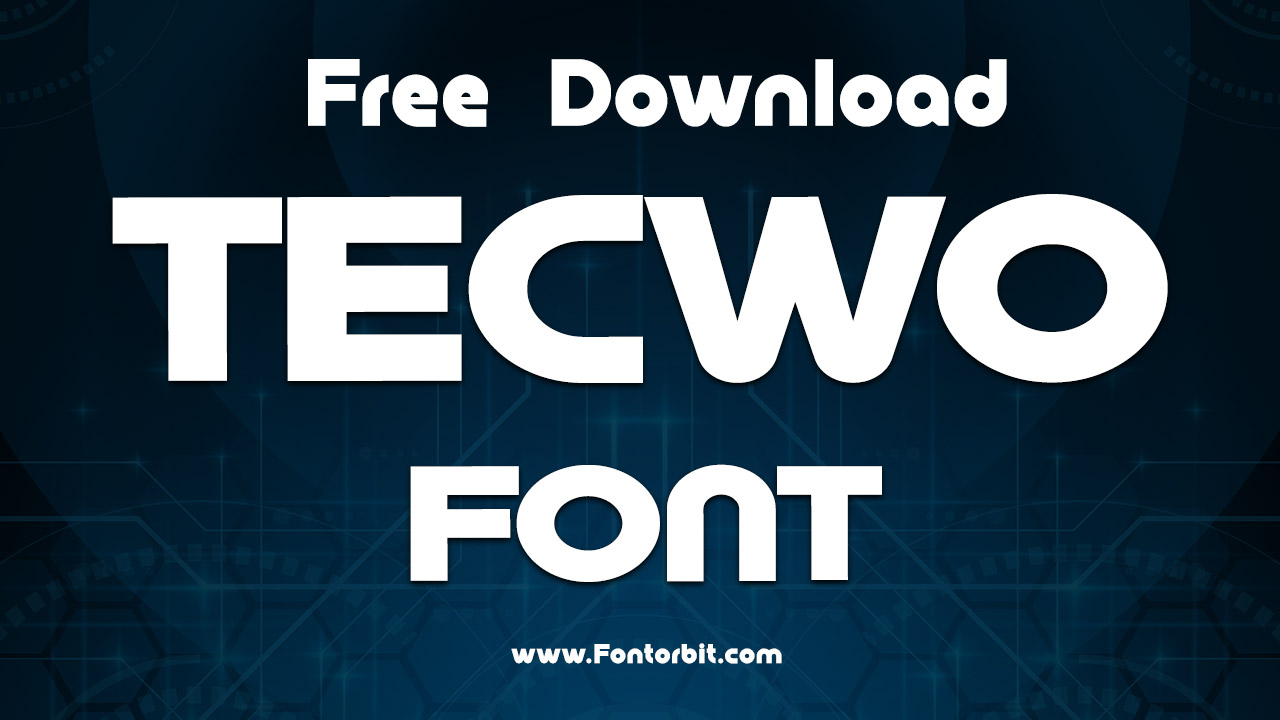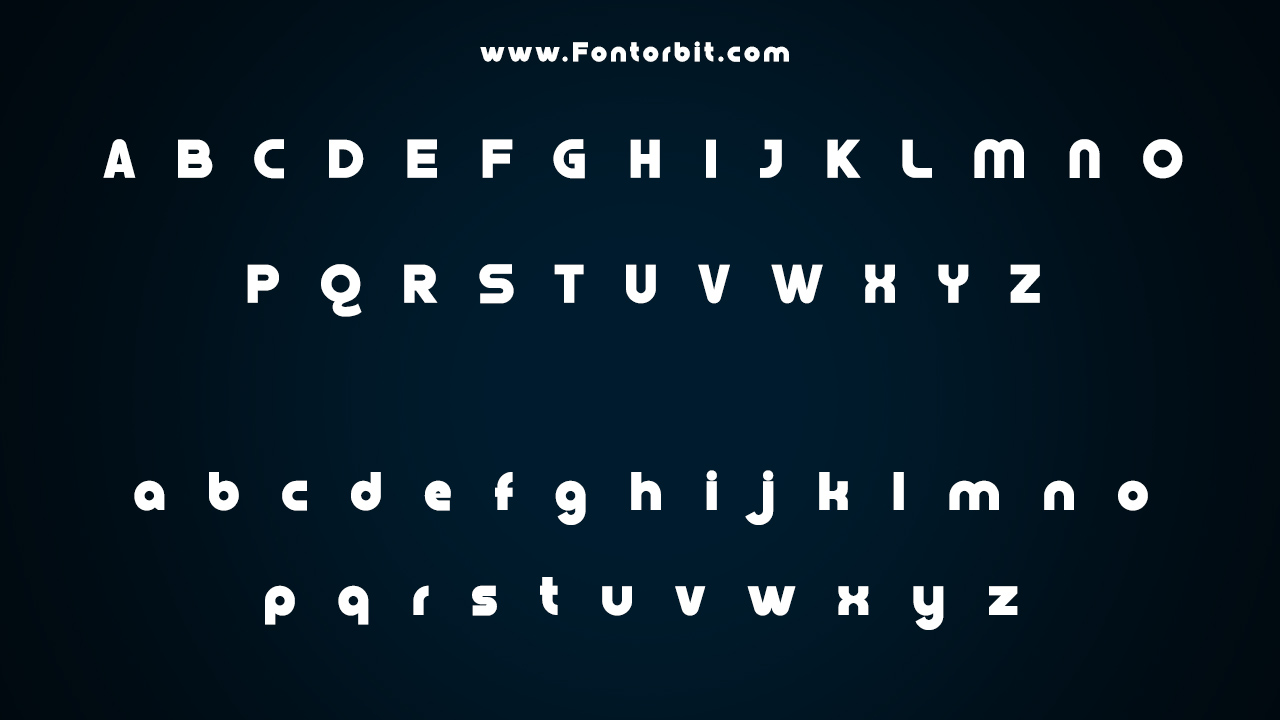
The Tecwo Font, created by Salamahtype, is a modern rounded logo typeface designed to bring a sleek, futuristic touch to your designs.
With its smooth curves and bold appearance, Tecwo is perfect for technology brands, startups, and businesses that want to project a contemporary yet approachable image. Its design is ideal for both high-tech logos and creative brand identities, blending professionalism with a modern flair.
The Tecwo Font Family
Tecwo Regular
- Technology Logos
- Startup Branding
- Business Identity
- Creative Advertising
Tecwo is perfect for designs that need a blend of modern sophistication and friendly approachability. Available in a range of styles, it provides versatility for various design needs.
Tecwo Font Character Map:
1.What Is The Tecwo Font?
Tecwo is a modern rounded typeface designed by Salamahtype, ideal for technology logos and branding with a contemporary yet friendly appearance.
2.Who Designed The Tecwo Font?
The Tecwo Font was designed by Salamahtype, focusing on creating a sleek and modern typeface for technology and startup branding.
3.What Are The Key Features Of The Tecwo Font?
Tecwo features smooth, rounded edges and a bold design, offering a blend of modern sophistication and approachability.
4.How To Use Tecwo Font In Branding?
Utilize Tecwo for technology logos, startup branding, business identities, and creative advertising to impart a contemporary and approachable style.
5.What Are The Alternatives To The Tecwo Font?
6.What Is The Character Set Of Tecwo Font?